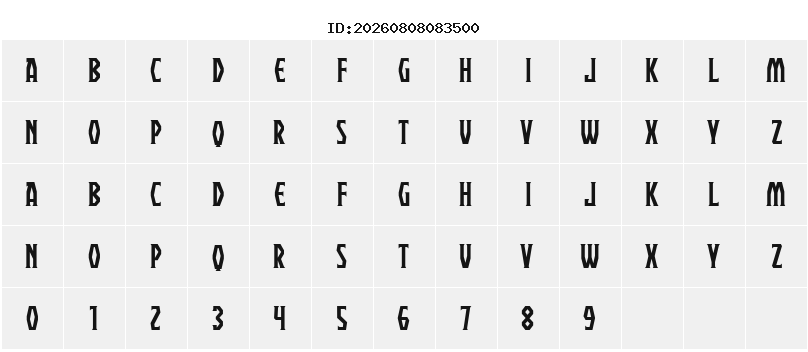
Praetorium BB Preview
• Font Name: Praetorium BB
• Font ID: Gladius BB
• Full Font Name: Praetorium BB
About Praetorium BB.ttf
Praetorium BB.ttf is a modern, elegant sans-serif font designed for ultimate readability and visual harmony. Perfect for branding, headlines, web design, and print materials.